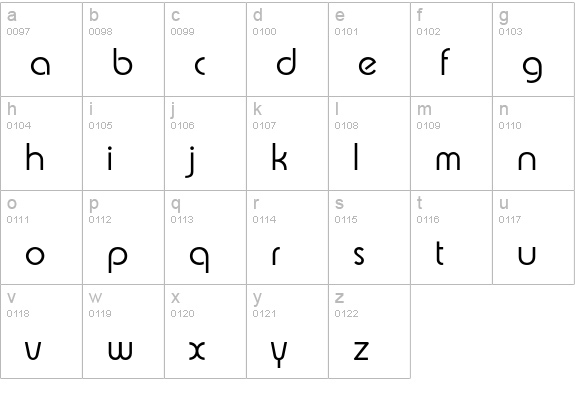
ExpressaEF-Light is a refined, elegant variant in the ExpressaEF typeface family \xE2\x80\x94 well suited to elegant body text, refined sub-headings, and luxury branding.
ExpressaEF-Light is a sleek and modern font that exudes elegance and sophistication. Its clean lines and minimalist design make it the perfect choice for a wide range of design projects, from branding to editorial design. The light weight of this font adds a touch of delicacy and refinement to any text it is applied to. The best part? ExpressaEF-Light is available for free download at FontsMarket.com. Now you can elevate your designs with this beautiful font without breaking the bank. Don't miss out on the opportunity to add ExpressaEF-Light to your font collection and bring a touch of timeless style to your projects. Download it today and start creating stunning designs with this versatile and elegant typeface.